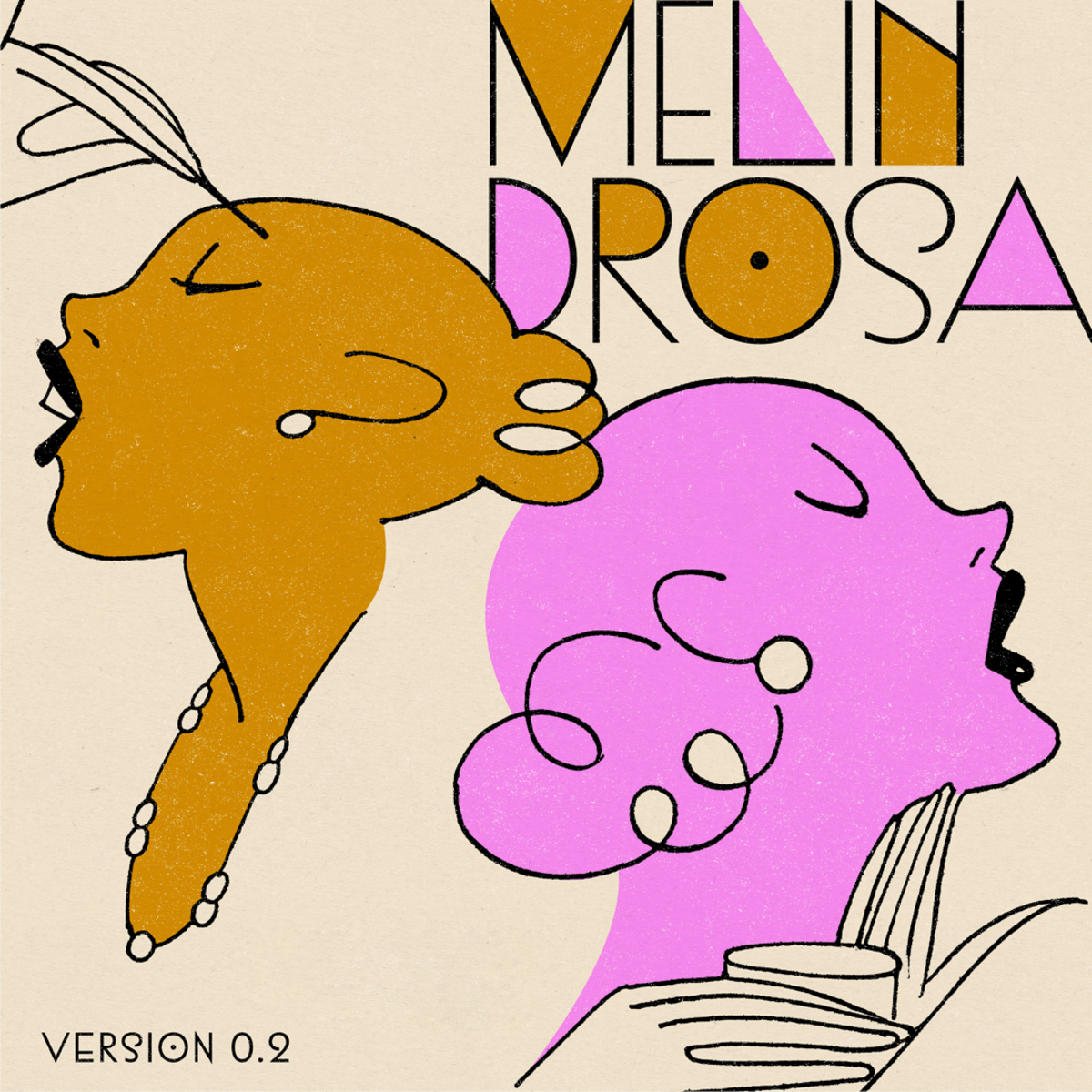
Melindrosa Font
Melindrosa Font is perfect for feminine branding projects, beauty salon logos, fashion boutique signage, wedding invitations, cosmetic packaging, lifestyle blogs, Instagram quotes, romantic greeting cards, spa marketing materials, and elegant product labels that require a delicate and graceful typographic touch.
This font is exciting because it embodies timeless femininity and sophistication through beautifully crafted letterforms that exude elegance and charm. The flowing curves and refined details create a luxurious aesthetic that instantly elevates any design, making it feel more polished, romantic, and visually captivating for discerning audiences.
The Melindrosa Font family typically includes uppercase and lowercase characters, numerals, punctuation marks, ligatures, and decorative alternates that provide designers with creative flexibility to customize their projects with unique stylistic variations.
Whether you're designing for beauty brands, creating romantic stationery, or developing elegant marketing materials that target sophisticated clientele, Melindrosa Font Free Download offers the perfect blend of grace and versatility. Its distinctive character and refined appearance make every project feel more luxurious and professionally executed, ensuring your designs capture attention while communicating elegance, femininity, and timeless style that resonates deeply with your target audience across all creative applications.